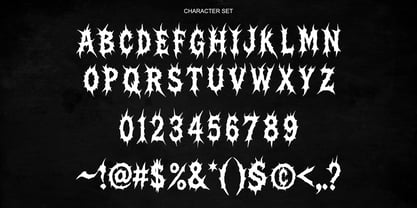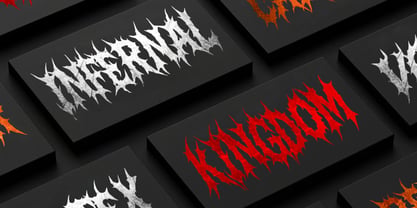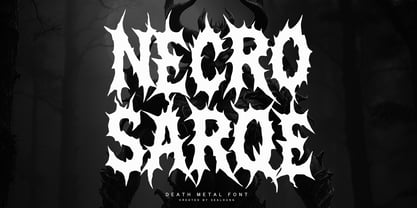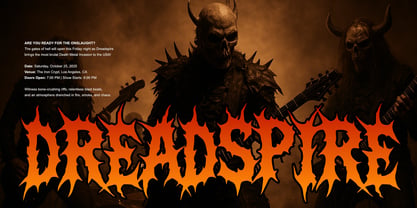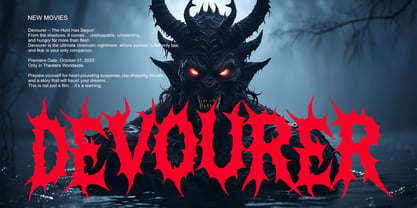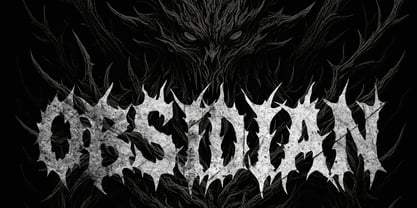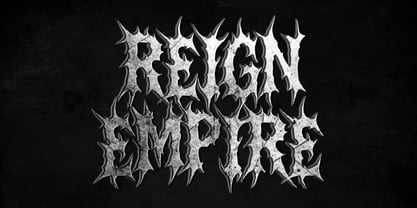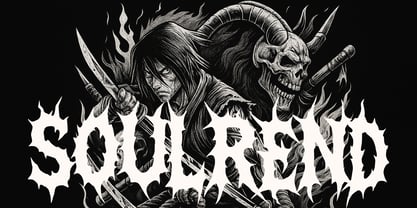
Necro Sarqe
by Sealoung
Introducing Necro Sarqe – a bone-chilling death metal typeface forged from the raw, chaotic energy of extreme metal and black metal aesthetics. Its jagged, uneven letterforms resemble root with razor-sharp spikes and sinister detailing, making it perfect for dark and intense design themes. Making it a powerful choice for projects that embrace the underground metal scene. Bold and aggressive, its sharp lines command attention, giving your designs a menacing edge.
The monochromatic backdrop amplifies its haunting presence, featuring a shadowy figure silhouetted beneath a full moon surrounded by ominous clouds. This grim atmosphere enhances the font’s gothic essence, making Necro Sarqe the ultimate choice for band logos, album covers, horror posters, or any project that demands a brutal, metal-inspired aesthetic. Let this font unleash raw power and darkness into your creations, perfectly capturing the spirit of heavy music and gothic artistry.